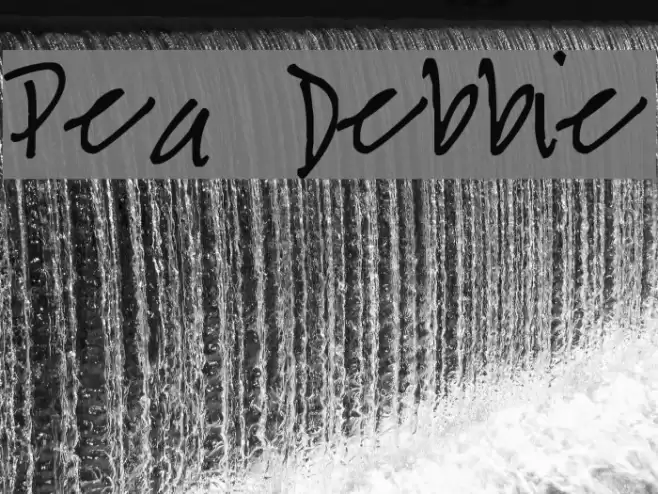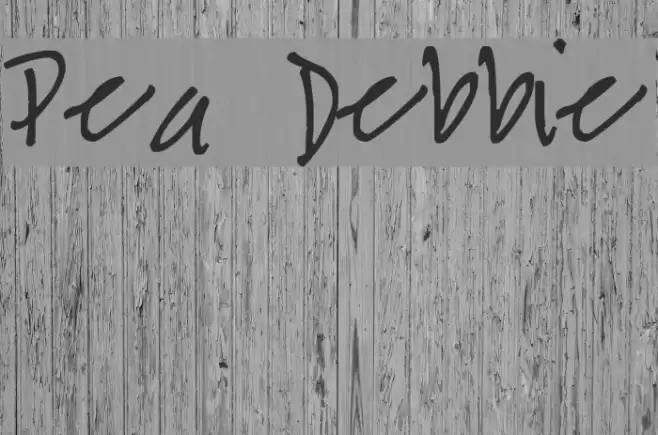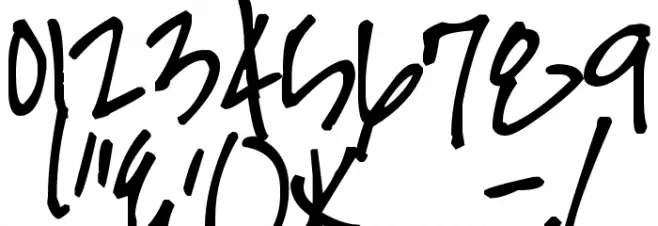
Pea Debbie Font
Pea Debbie Description
This font exudes a casual, handwritten style, characterized by its loose, flowing strokes and slightly irregular letterforms. The uppercase and lowercase letters maintain a consistent style, with a playful and informal appearance. The numbers and special characters follow the same aesthetic, adding to the font's cohesive look. Its organic and spontaneous feel makes it ideal for projects that require a personal touch. The font's overall appearance is lively and dynamic, making it suitable for creative and informal applications.
A casual, handwritten font with a playful and informal style from Uncategorized fonts.
- Proposed Projects: Ideal for greeting cards, personal notes, creative projects, and informal branding.
- Overall Style: Casual
- Use Case: Logos, Headlines, Informal text